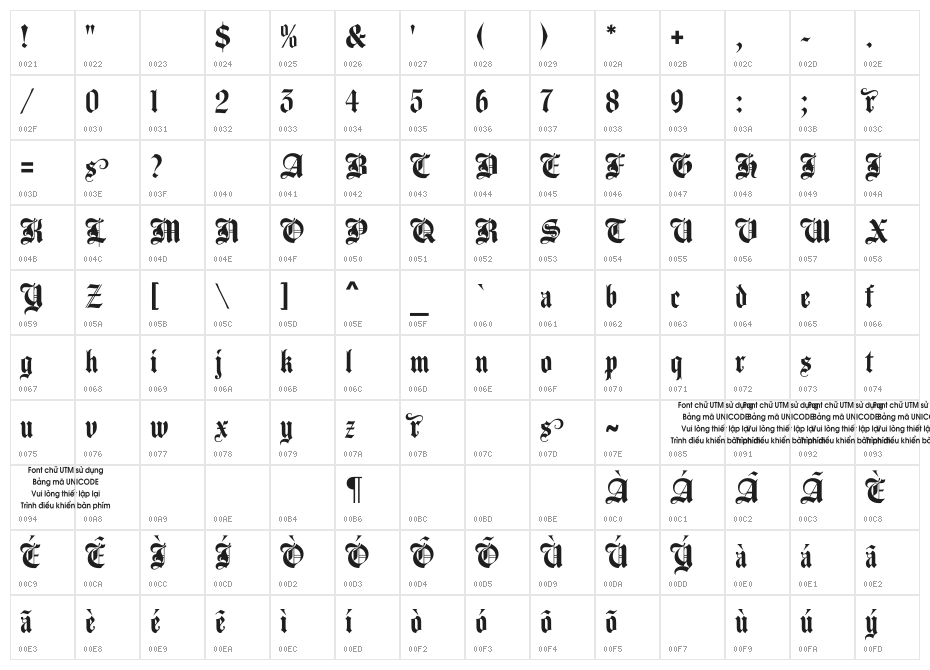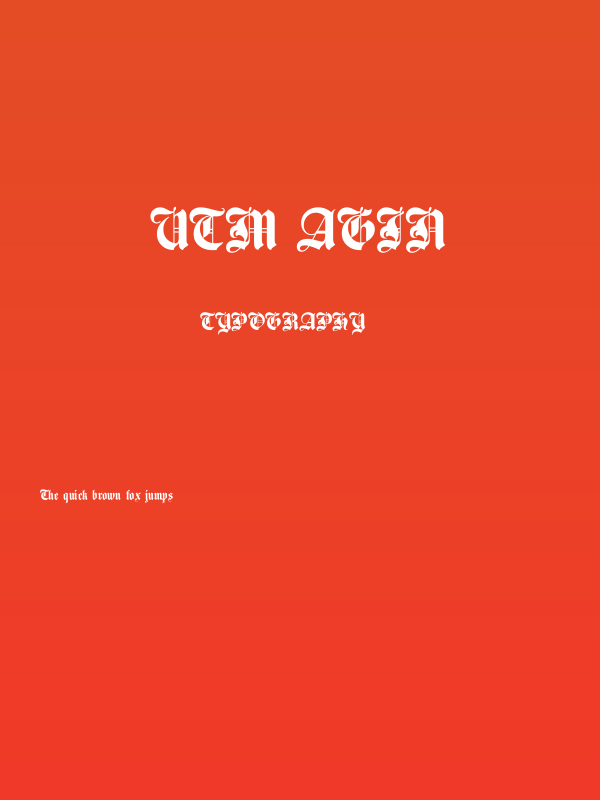
UTM Agin Font
✎ Gothic
| 分类 | Gothic |
| 整体风格 | Vintage |
| 使用场景 | Logos, Headlines, Decorative text |
| 推荐项目 | Ideal for historical documents, themed event invitations, book covers, and branding that requires a traditional or gothic touch. |